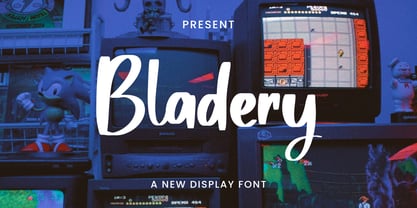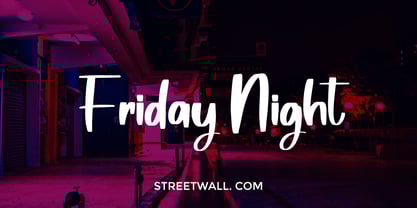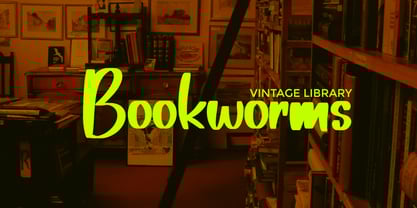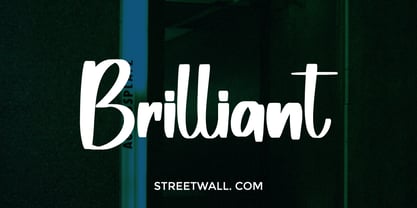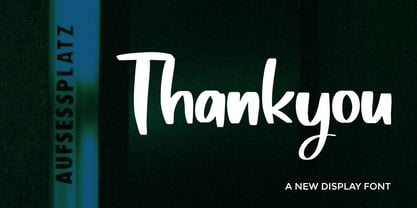
Bladery
by Ayska
The Bladery Font Family was designed by Dhoni Trihatmoko and published by Ayska. Bladery contains 1 styles. More about this family
Bladery a stunning, sophisticated typeface that exudes elegance and charm, featuring lots of alternate characters, ligatures, and beautiful strokes. A simple, clean and cool handwritten font for all designs that require a natural and simple hand touch.
Designers: Dhoni Trihatmoko
Foundry: Ayska